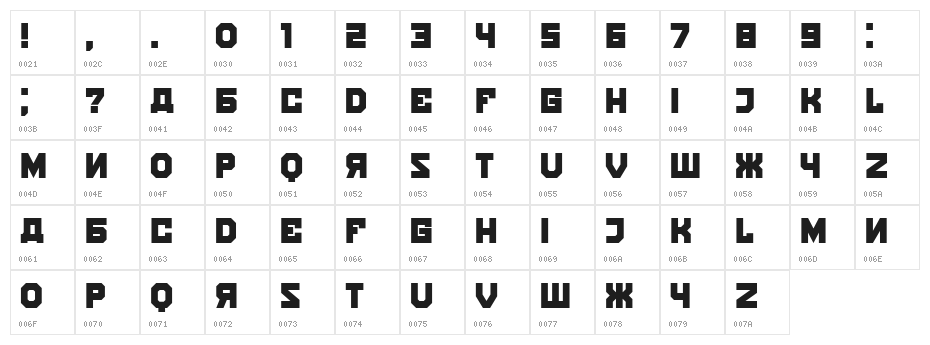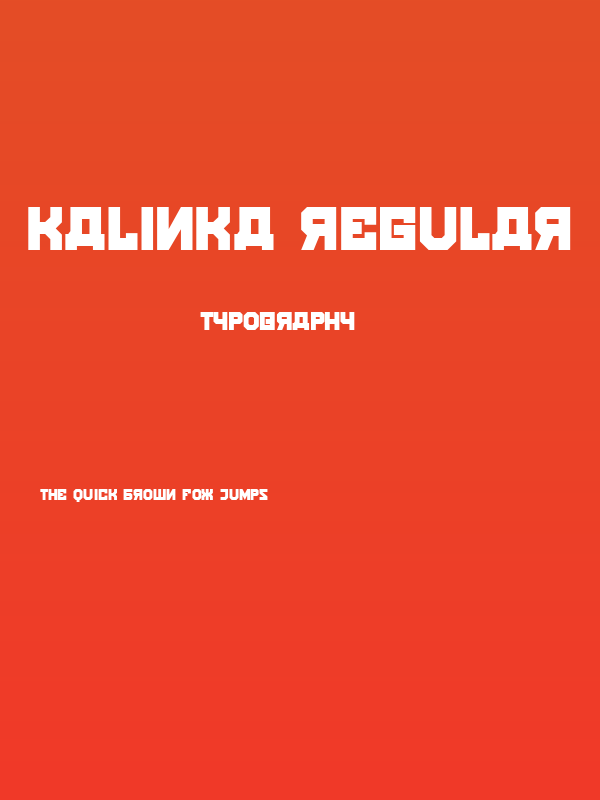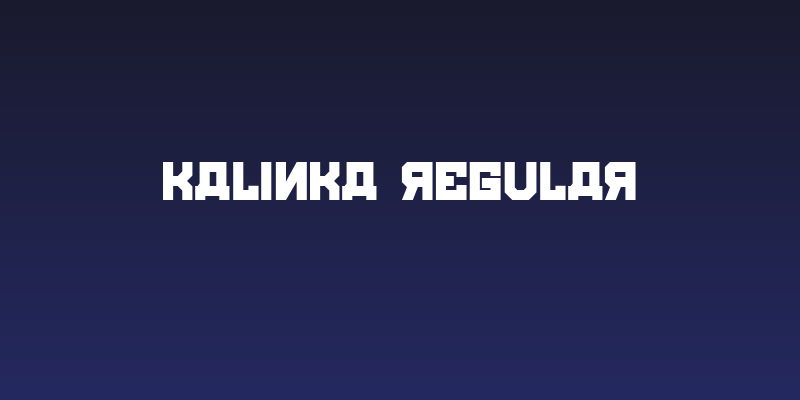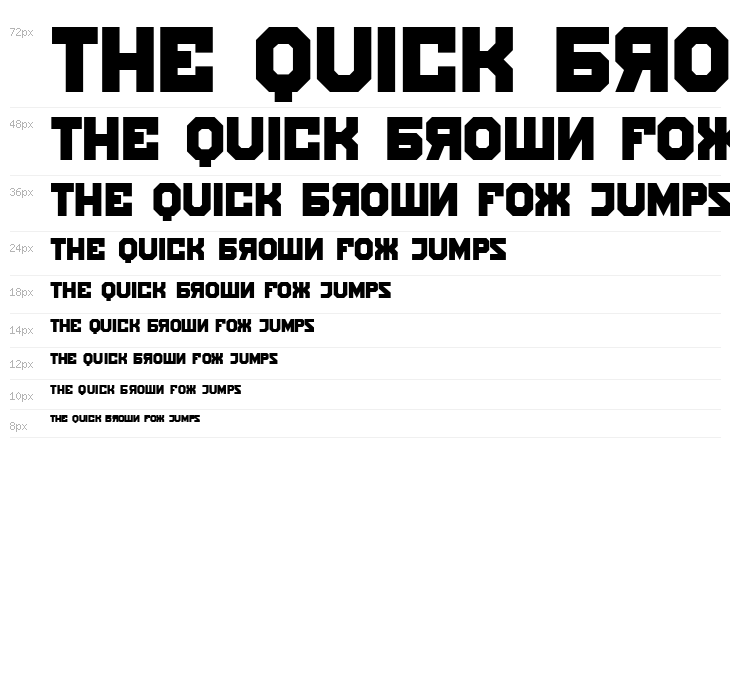
Kalinka Regular Font
Kalinka Regular Description
This font features a bold, geometric design with a distinctly modern and industrial feel. The characters are constructed with sharp angles and straight lines, giving them a blocky appearance. The uppercase letters are uniform in height, while the numerals and special characters maintain the same bold, angular style. The font's strong visual impact makes it suitable for attention-grabbing headlines and display purposes. Its unique design is reminiscent of digital or futuristic aesthetics, making it ideal for projects that require a modern and edgy look.
| Proposed Projects | Ideal for branding, posters, video game graphics, and futuristic-themed designs. |